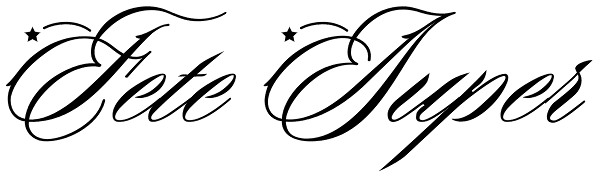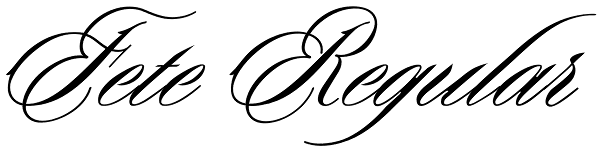
Fete
Script design can be pretty complex, but at the same time it has some unique opportunities that are simply not an option in regular serif and sans serif fonts. The challenge for me was to see if there was a common design element that can be applied...
Fete Super
Fete Regular